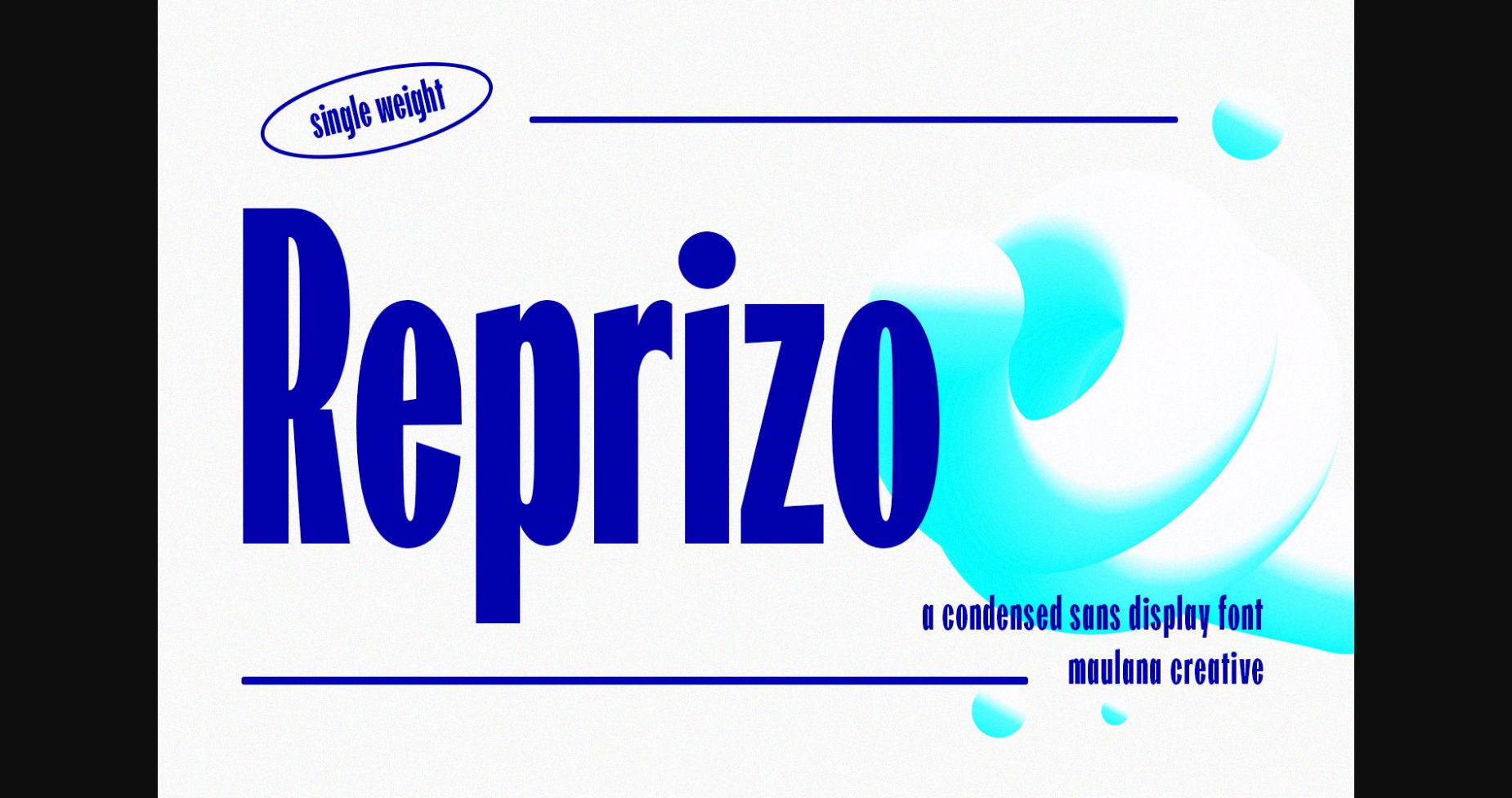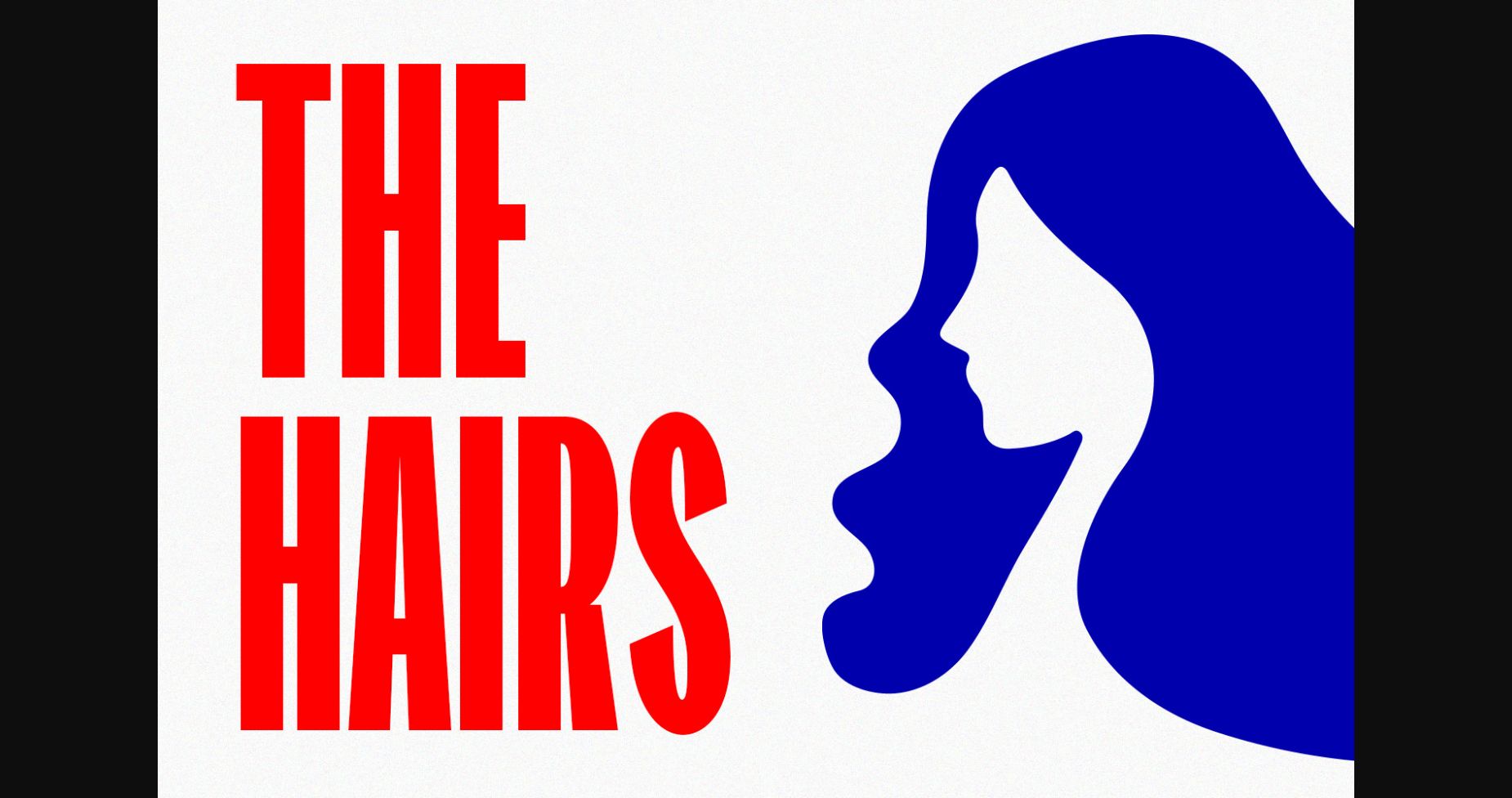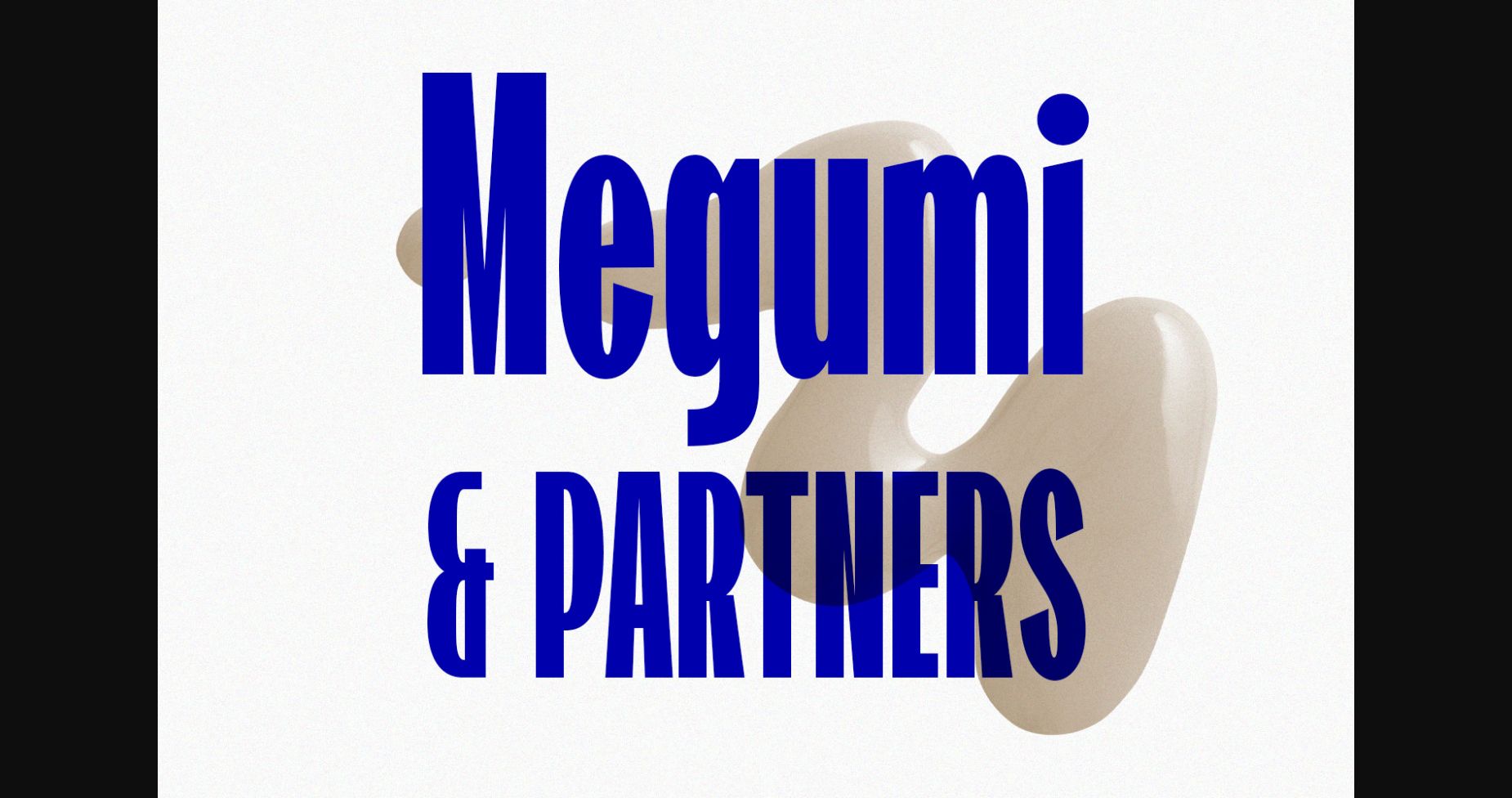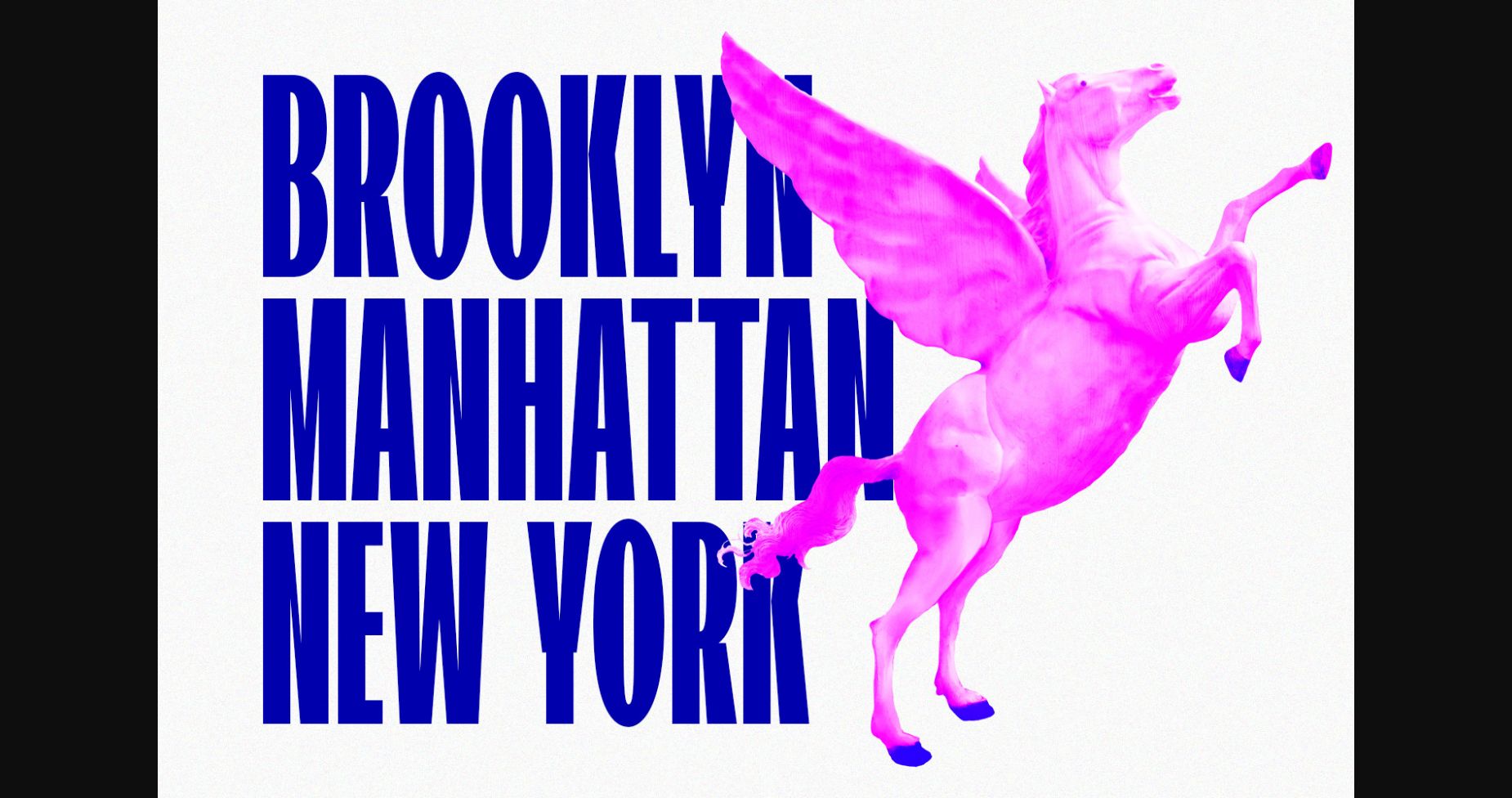
About Reprizo Font
Reprizo is modern condensed sans display font. Bold stroke, fun character with a bit of ligatures and alternates. This font is good for logo design, Social media, Movie Titles, Books Titles, short text even long text letter,s and is good for your secondary text font with script or serif. Make a stunning work with Reprizo font.